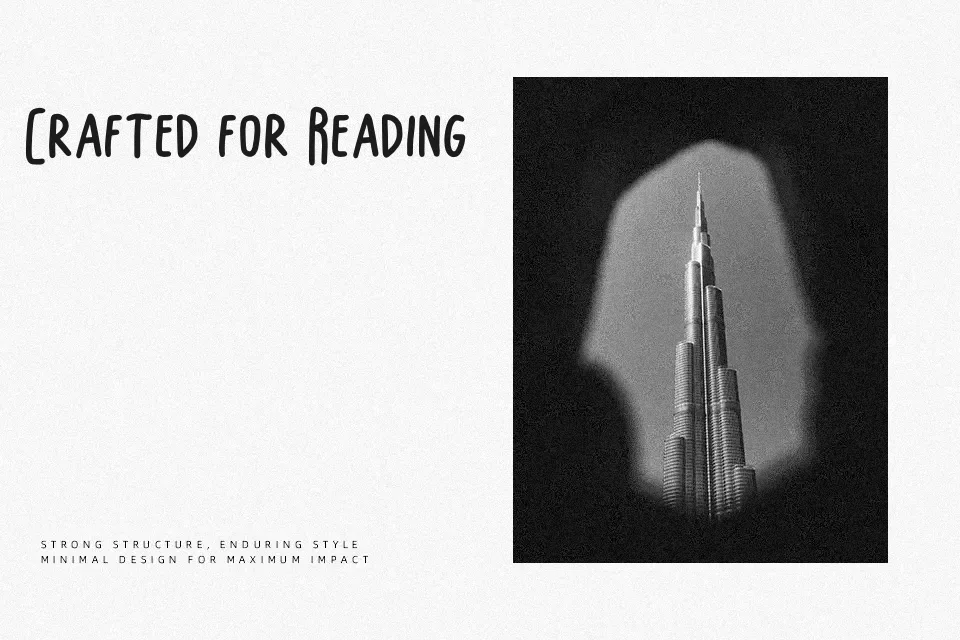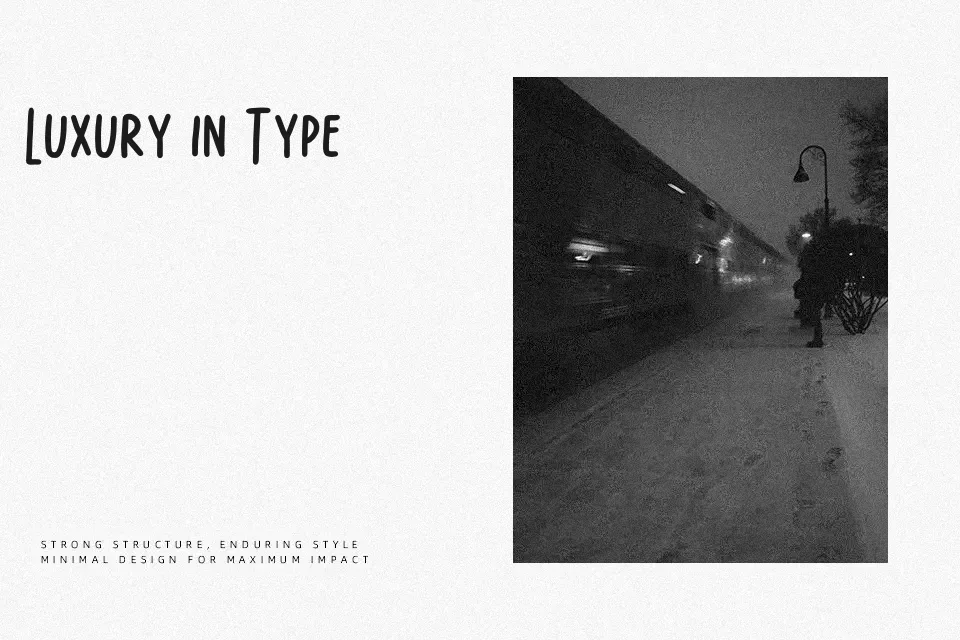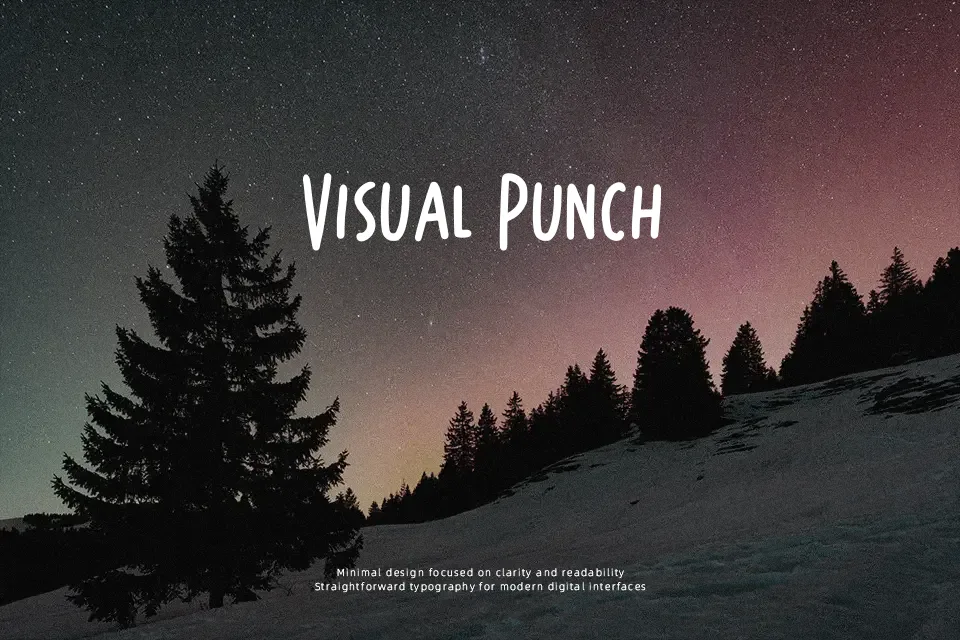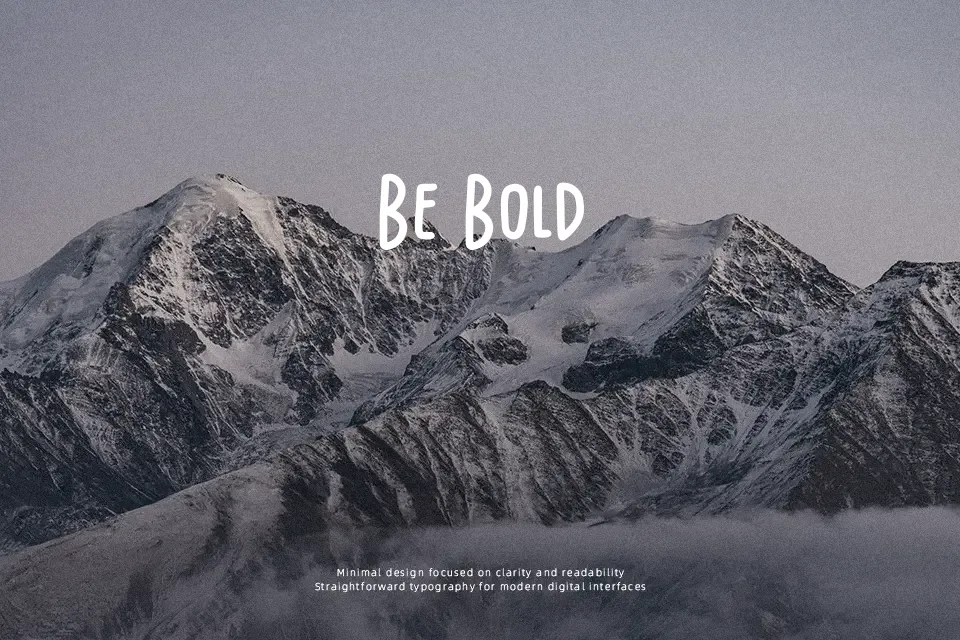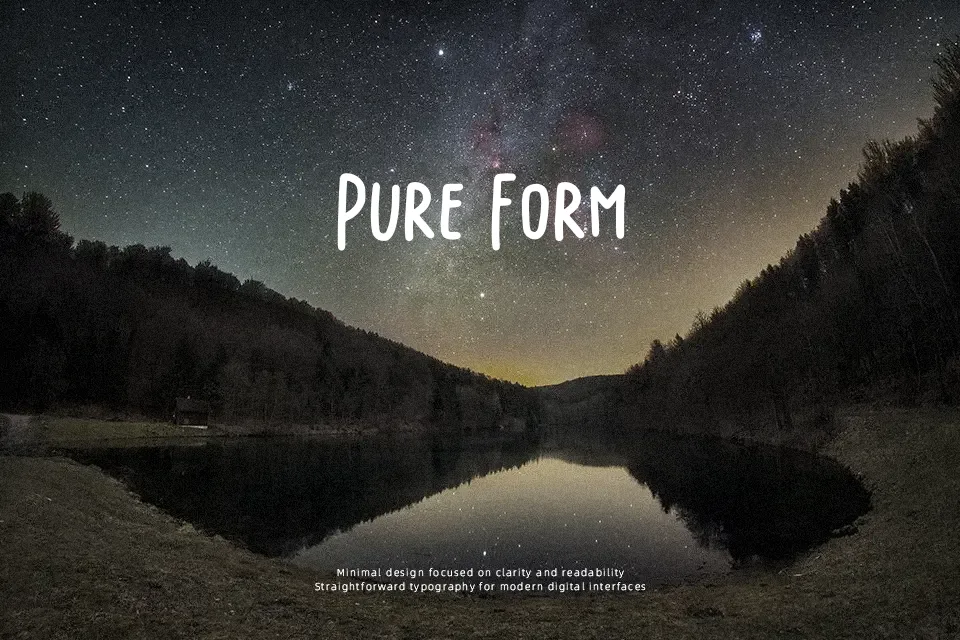
Sunday Mine Font
Built with bold strokes and softened terminals, Sunday Mine Font presents a cheerful, cartoon-inspired aesthetic across its uppercase and lowercase letterforms. The typeface maintains consistent stroke thickness with generous inner counters, providing steady visual balance and comfortable character spacing across short display lines. Proportions are slightly condensed yet open enough to preserve distinct shapes at medium sizes, making the letterforms well suited for juvenile product branding, classroom signage, and event banners. However, the heavy weight and playful anatomy reduce reading comfort in continuous multi-line paragraphs. The design functions most effectively as an energetic headline solution where strong visual presence is needed.
– children book covers
– toy packaging design
– animated video titles
– amusement park signage
– long editorial body text
– corporate annual reports
– legal contract documentation
– compact user interface labels
Perfect for branding, headline, and kids, with a bold and cartoon style.